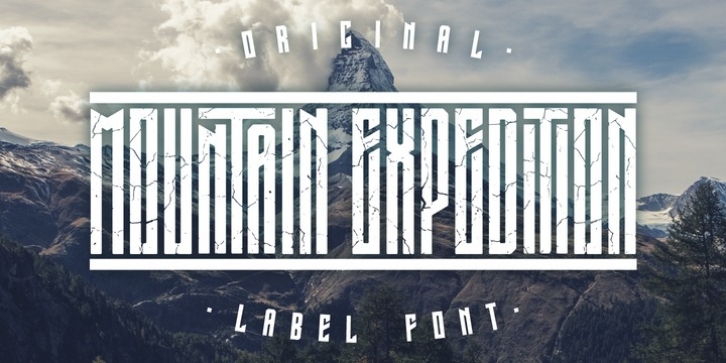
Mountain Expedition was designed by Oleg Voznyy and published by Vozzy. Mountain Expedition contains 2 styles and family package options.
Introducing a vintage label font named Mountain Expedition. It contains capital and small characters. The small letters I created to support main design of the capital letters. Therefore the punctuation characters are designed to be used just with the capitals. Also the capital characters have a lot of ligatures. All available characters you can see on the preview.
This strong typeface will be good viewed on vintage style posters, t-shirts, greeting cards, logo and more.